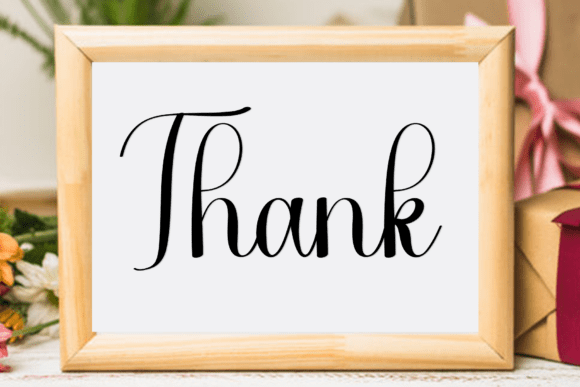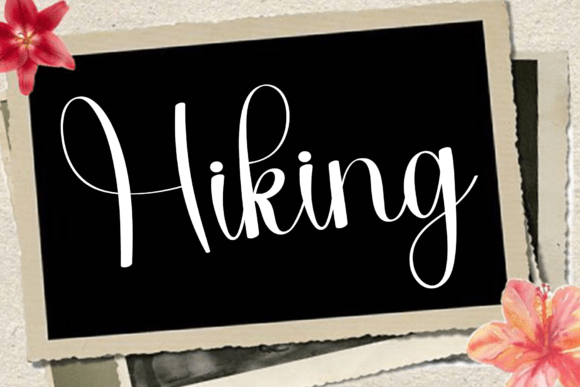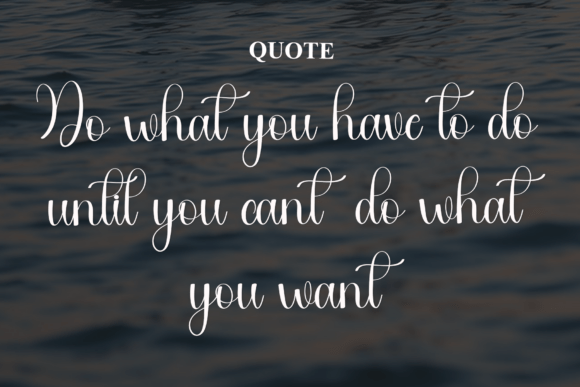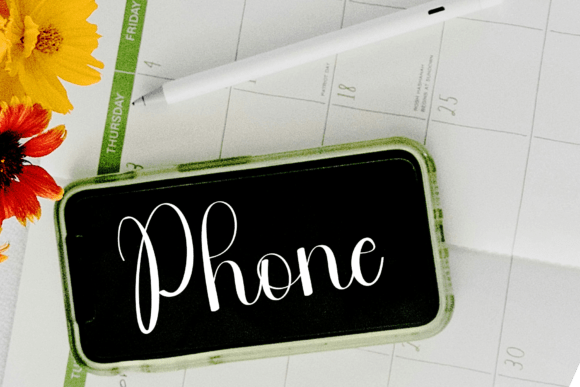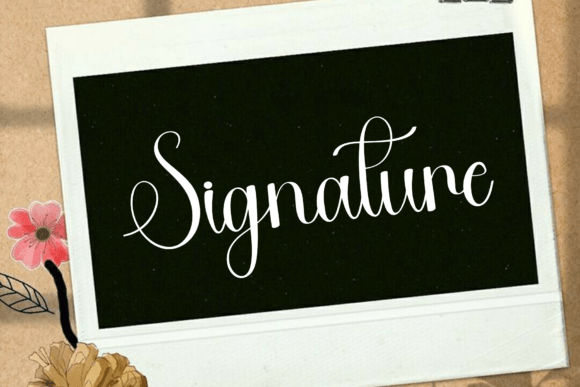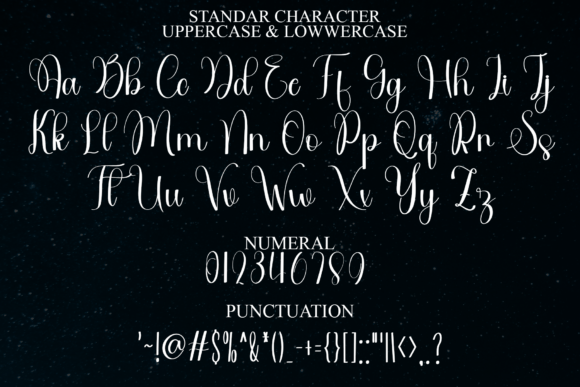
Introducing Brushy Font: The Festive and Merry Typeface for Holiday Designs
The holiday season is upon us, and what better way to get into the spirit than with a font that’s as festive and merry as Brushy? This decorative typeface is designed to capture the magic of the holiday season, with its whimsical flair and enchanting elements. Whether you’re a designer, crafter, or DIY enthusiast, Brushy Font is the perfect addition to your typography collection.
A Font that Adds a Touch of Enchantment to Your Designs
Brushy Font is more than just a typeface – it’s an experience. With its intricate details and decorative elements, it adds a touch of wonder to your designs. Imagine creating greeting cards, gift tags, and holiday-themed projects that transport your recipients to a world of nostalgia and cheer. That’s what Brushy Font can do for you.
Whether you’re designing for personal or commercial use, Brushy Font is the perfect choice for holiday-themed projects. Its festive and merry vibe makes it ideal for:
- Greeting cards: Create personalized and unique holiday cards that will make your loved ones feel special.
- Gift tags: Add a touch of elegance and whimsy to your gift tags, making them perfect for presents, stockings, and holiday decorations.
- Holiday-themed projects: From invitations to party decorations, Brushy Font is the perfect addition to your holiday projects.
The Magic of PUA Encoding
One of the best things about Brushy Font is that it’s PUA (Private Use Area) encoded. This means that you can access all of the amazing glyphs and ligatures with ease, giving you even more creative freedom to experiment with your designs.
PUA encoding allows you to:
- Access a wide range of glyphs and ligatures, including festive symbols, ornaments, and swashes.
- Easily swap out and combine glyphs to create unique and personalized designs.
- Take your designs to the next level with the flexibility and creativity that PUA encoding provides.
Bringing a Cheerful and Nostalgic Ambiance to Your Words
There’s something special about Brushy Font that evokes a sense of nostalgia and cheer. Its whimsical flair and decorative elements transport you to a world of holiday magic, making it the perfect choice for designers and crafters who want to create designs that feel truly special.
With Brushy Font, you can:
- Create designs that feel personal and heartfelt.
- Add a touch of vintage charm to your projects.
- Evoke the spirit of the holiday season in your designs.
Let Your Typography Shine with Brushy Font
If you’re looking for a font that will add a touch of magic to your designs, look no further than Brushy Font. With its festive and merry vibe, decorative elements, and PUA encoding, it’s the perfect choice for designers and crafters who want to create holiday-themed projects that shine.